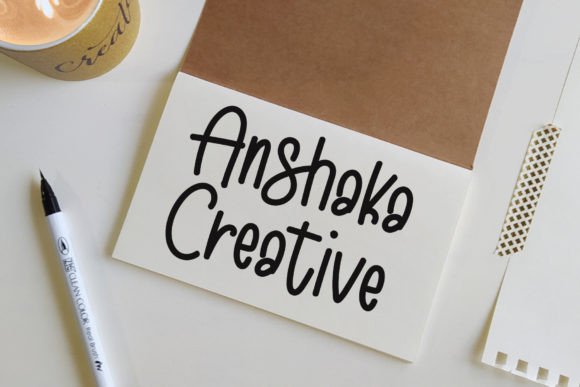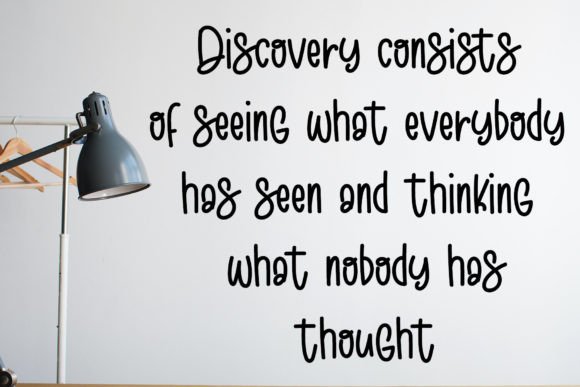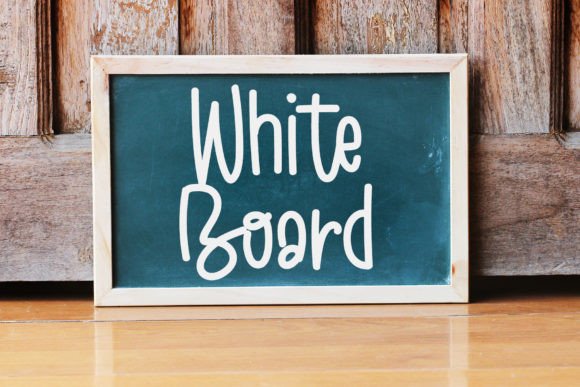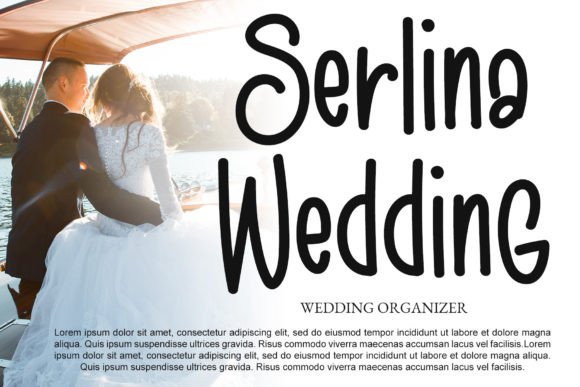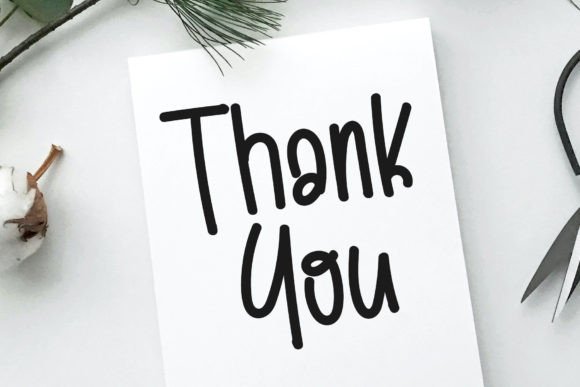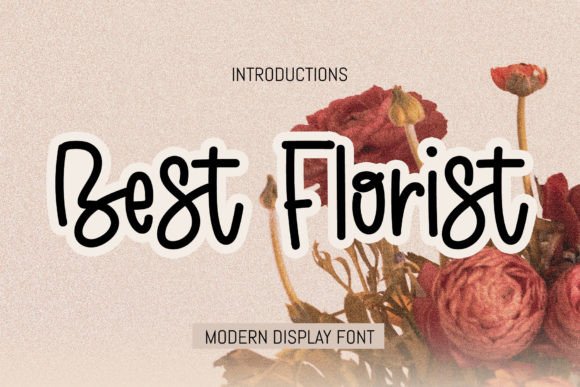
The Ultimate Guide to the Best Florist Font: Adding a Touch of Whimsy to Your Designs
I’ll never forget the time I was working on a children’s party invitation project, and I just couldn’t seem to find the perfect font. The design was already coming along great, with bright colors and fun illustrations, but the font I was using just wasn’t cutting it. It was too serious, too boring, and just didn’t capture the playful vibe I was going for. That’s when I stumbled upon the Best Florist font, and let me tell you, it was love at first sight! 💕
This fun and quirky display font is perfect for use on cheerful topics, and it’s especially suitable for children’s themed designs. When combined with bright colors, it’s a match made in heaven! In this article, I’ll be sharing my honest review of the Best Florist font, a practical guide on how to use it, and some similar font alternatives you might enjoy.
Honest Review: What I Love and What I Don’t
- 💖 Fun and quirky design that’s perfect for children’s themed projects
- 🎨 Highly versatile and works well with bright colors
- 🔍 PUA encoded for easy access to glyphs and ligatures
- 👍 Great for display text, titles, and headings
- ⚠️ Limited use for body text or long paragraphs
- 🤔 May not work well for more formal or professional designs
The Story Behind the Best Florist Font
The Best Florist font was designed with one goal in mind: to create a fun and playful font that’s perfect for children’s themed designs. The designer wanted to capture the whimsy and magic of childhood, and I think they succeeded! The font’s quirky design and bright personality make it perfect for adding a touch of fun to your designs.
Q: Is the Best Florist font suitable for body text?
A: No, the Best Florist font is best used for display text, titles, and headings. It’s not suitable for long paragraphs or body text.